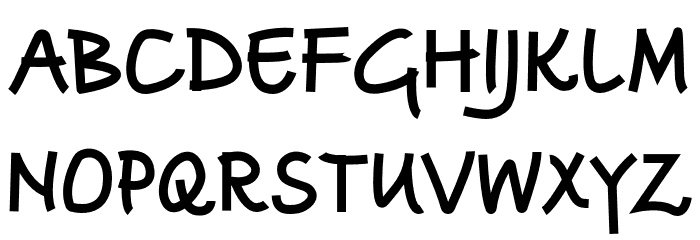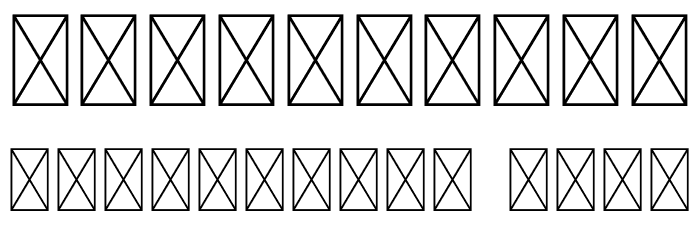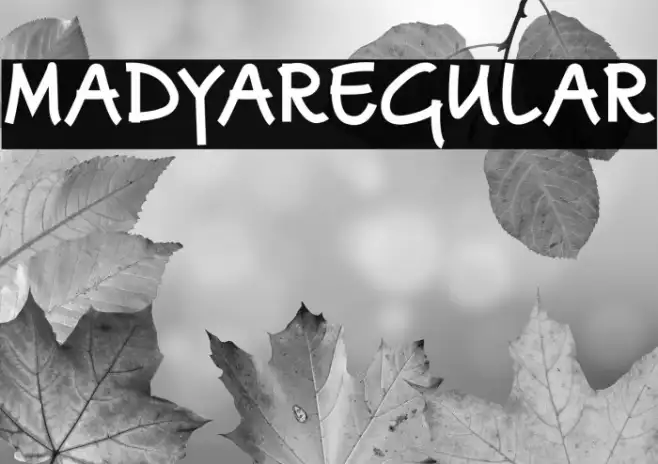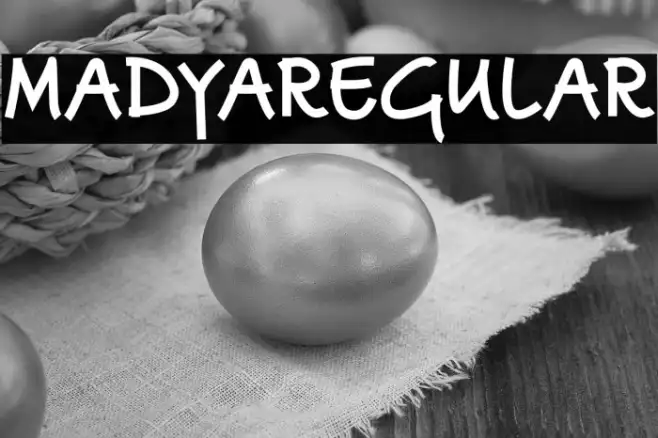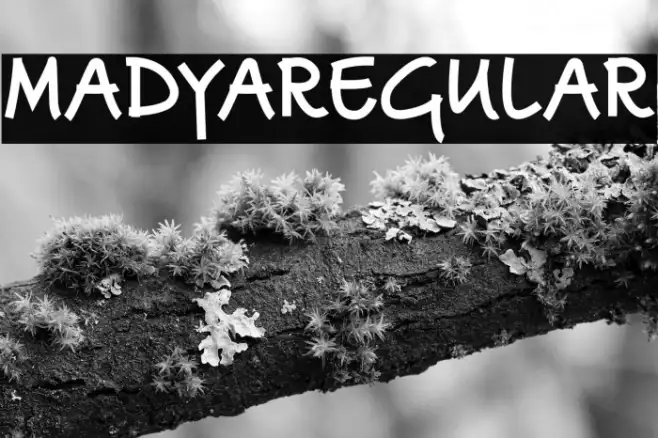
MadyaRegular Font
This font features a dynamic and energetic style, characterized by its bold and slightly slanted letterforms. The strokes are thick and consistent, giving it a strong presence. The uppercase letters have a playful yet structured appearance, while the lowercase letters maintain a cohesive flow. The overall design is reminiscent of brush or marker strokes, adding a touch of informality and creativity. The spacing between characters is balanced, ensuring readability while maintaining its artistic flair. This font is well-suited for projects that require a lively and engaging aesthetic.
A bold, dynamic font with brush-like strokes and a playful style.
- Proposed Projects: Ideal for branding, posters, headlines, and creative projects that require a bold and artistic touch.